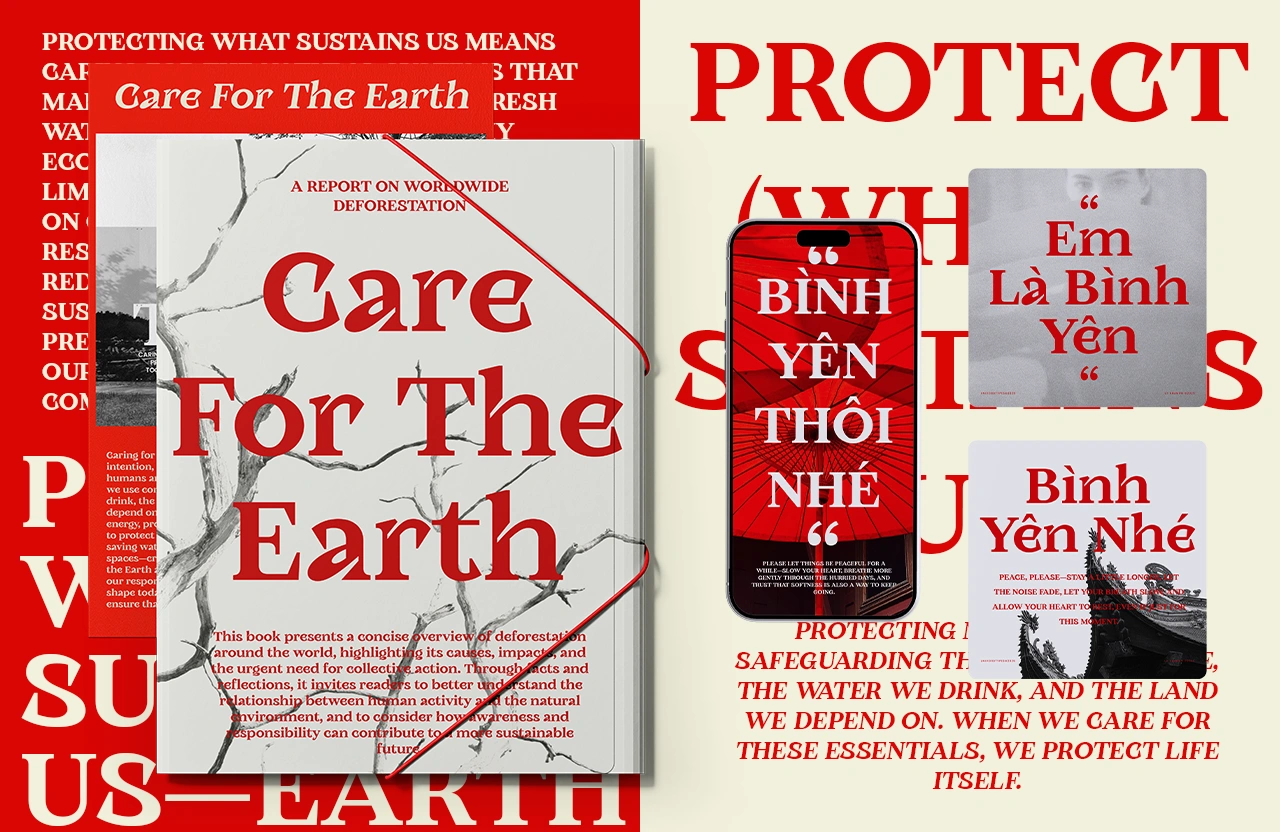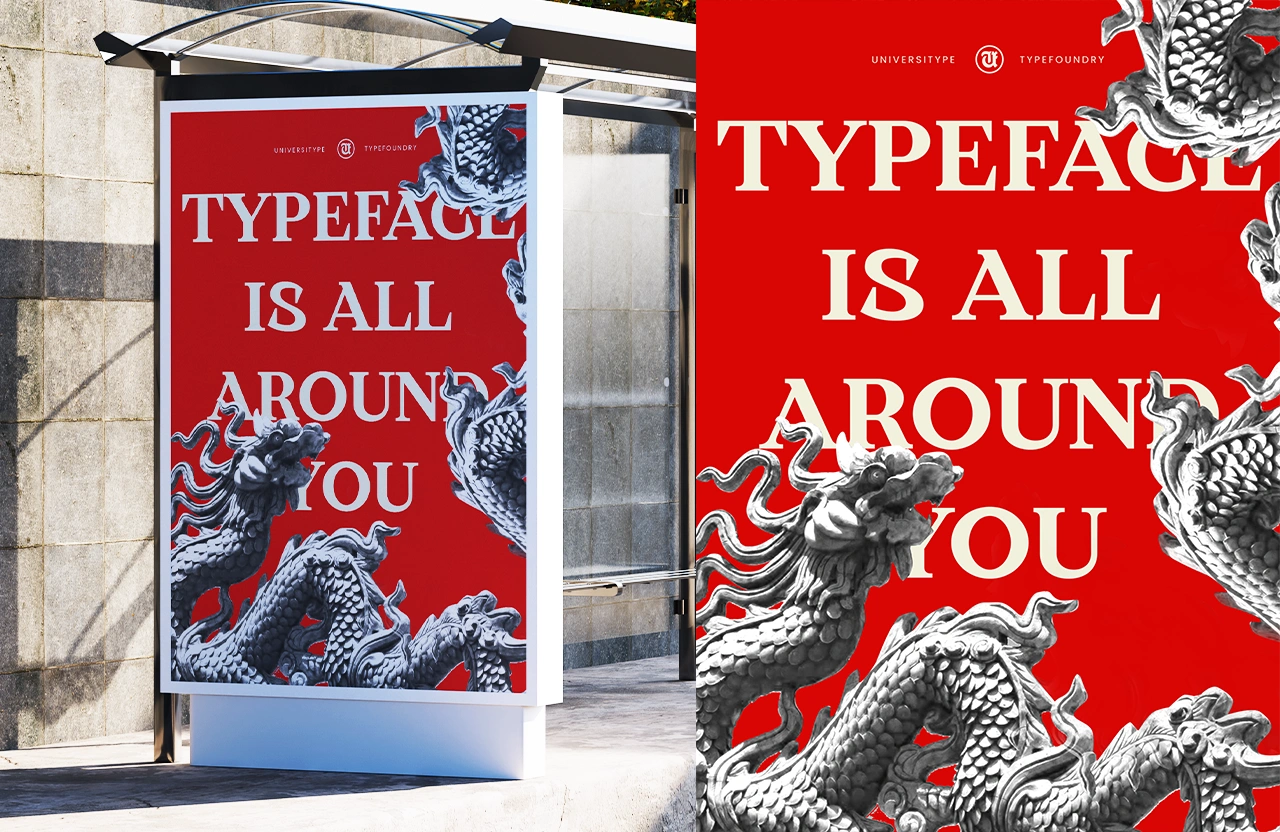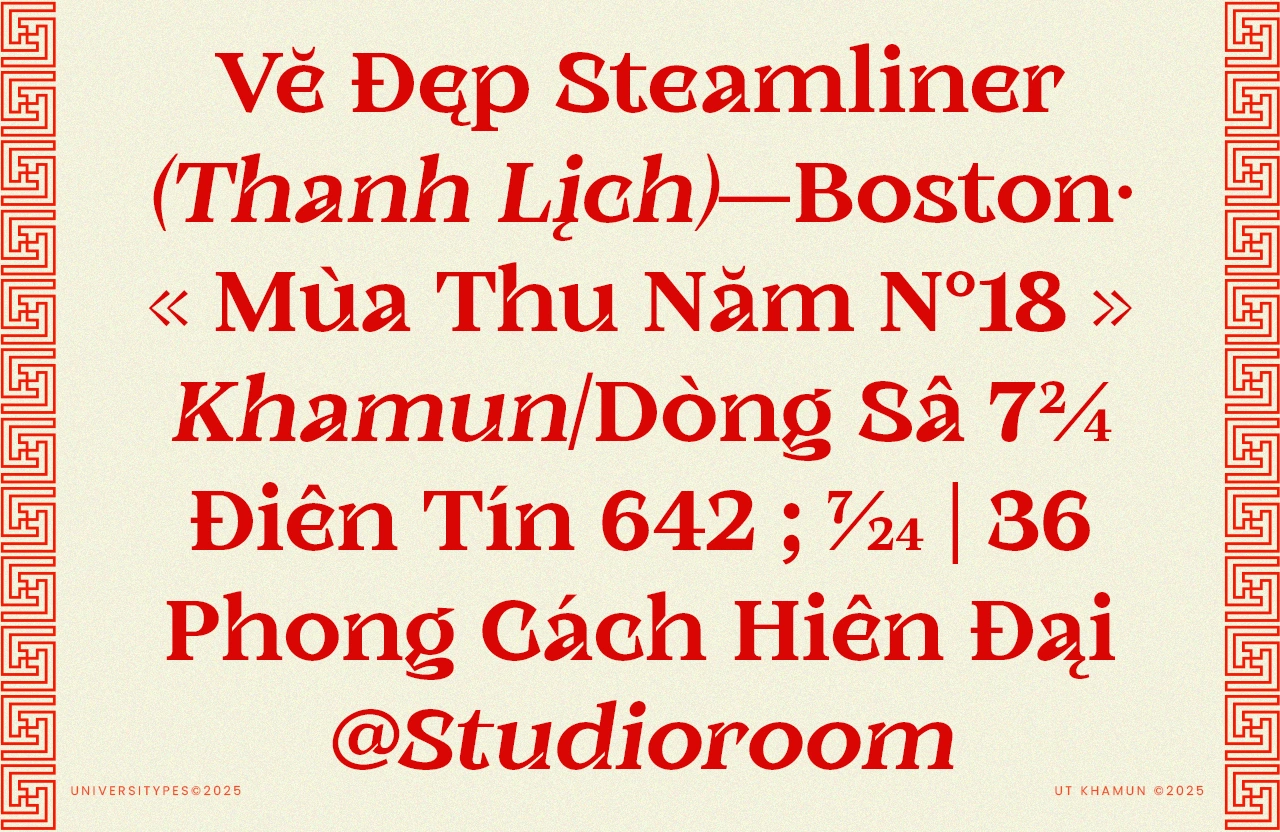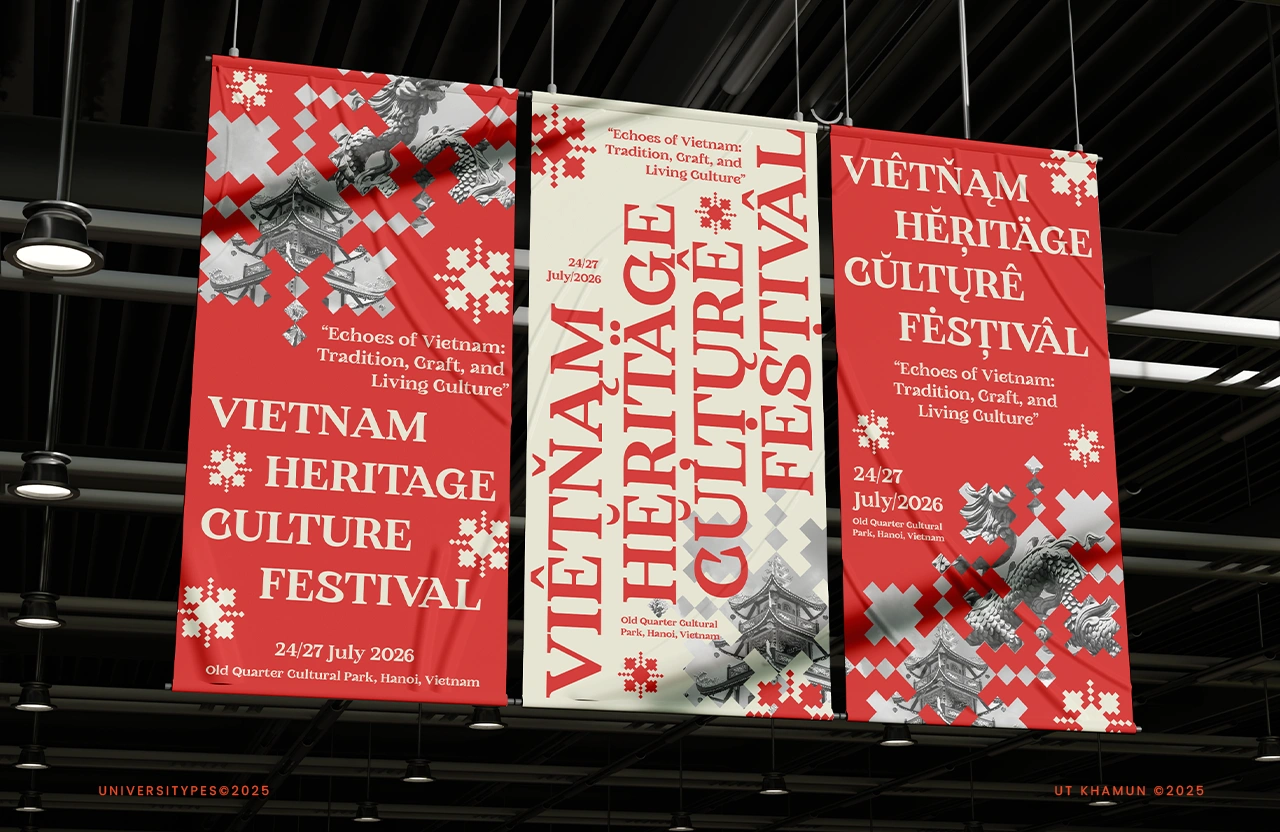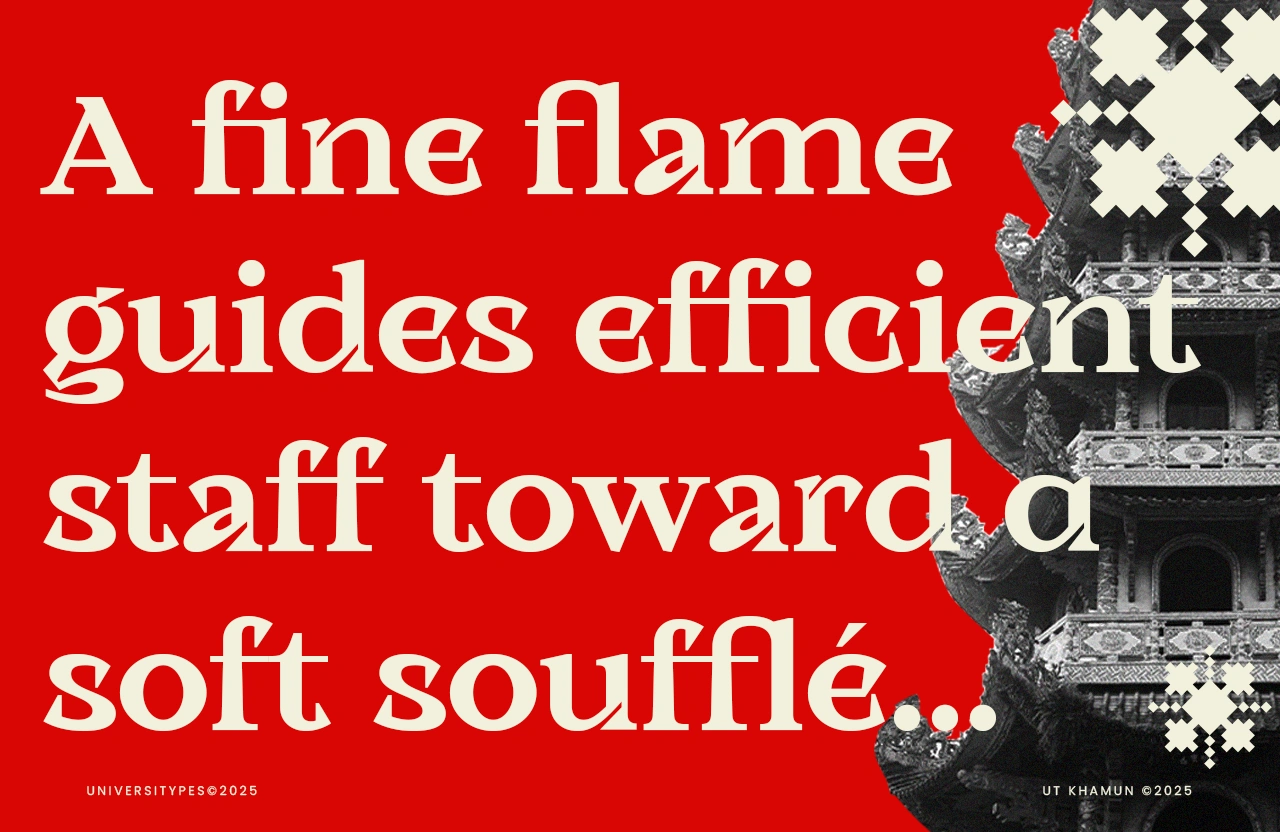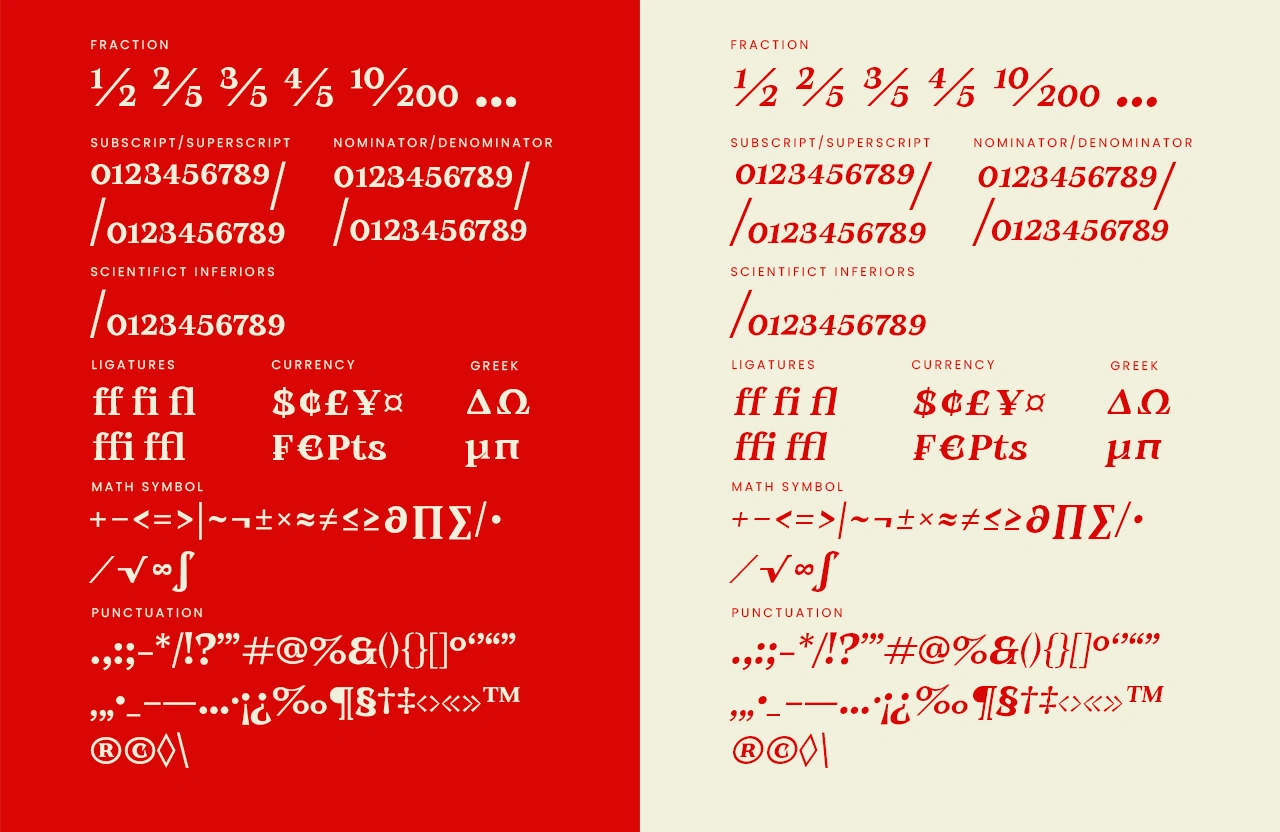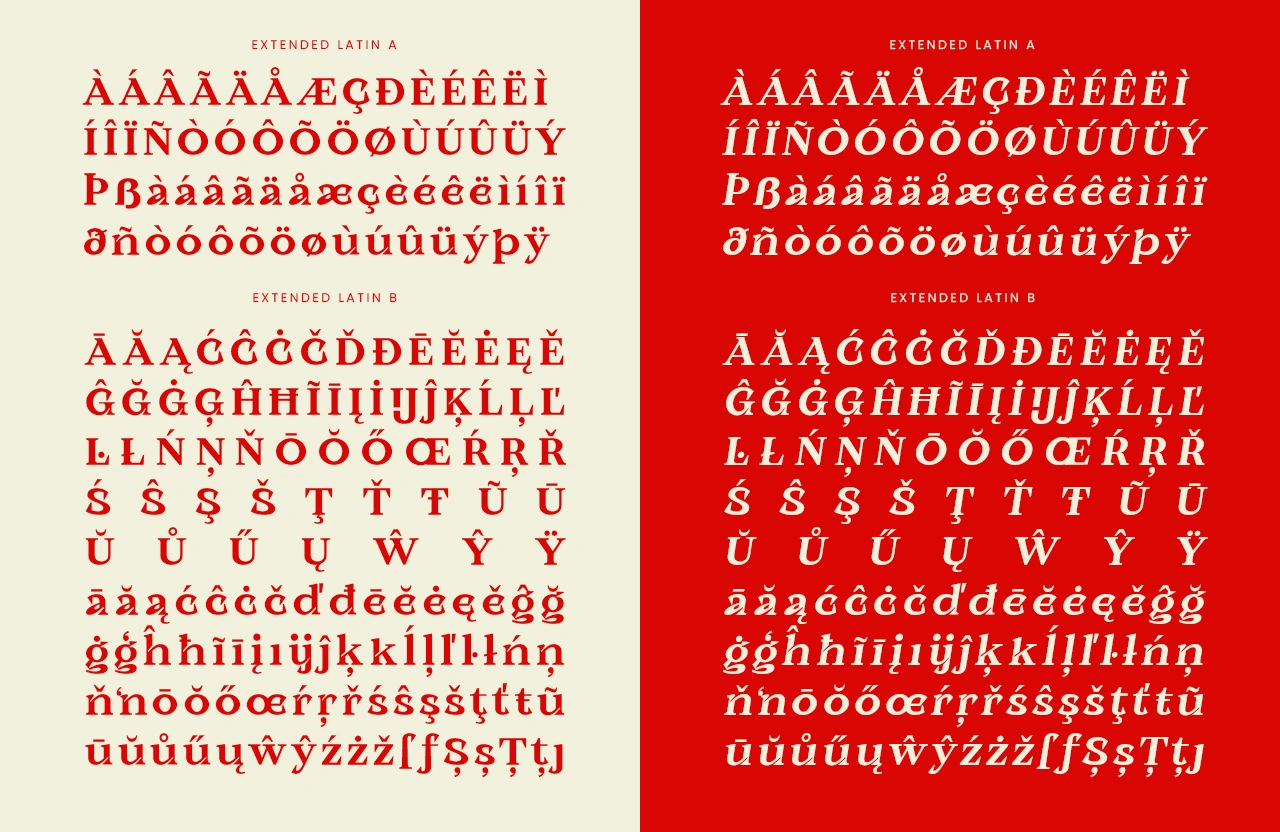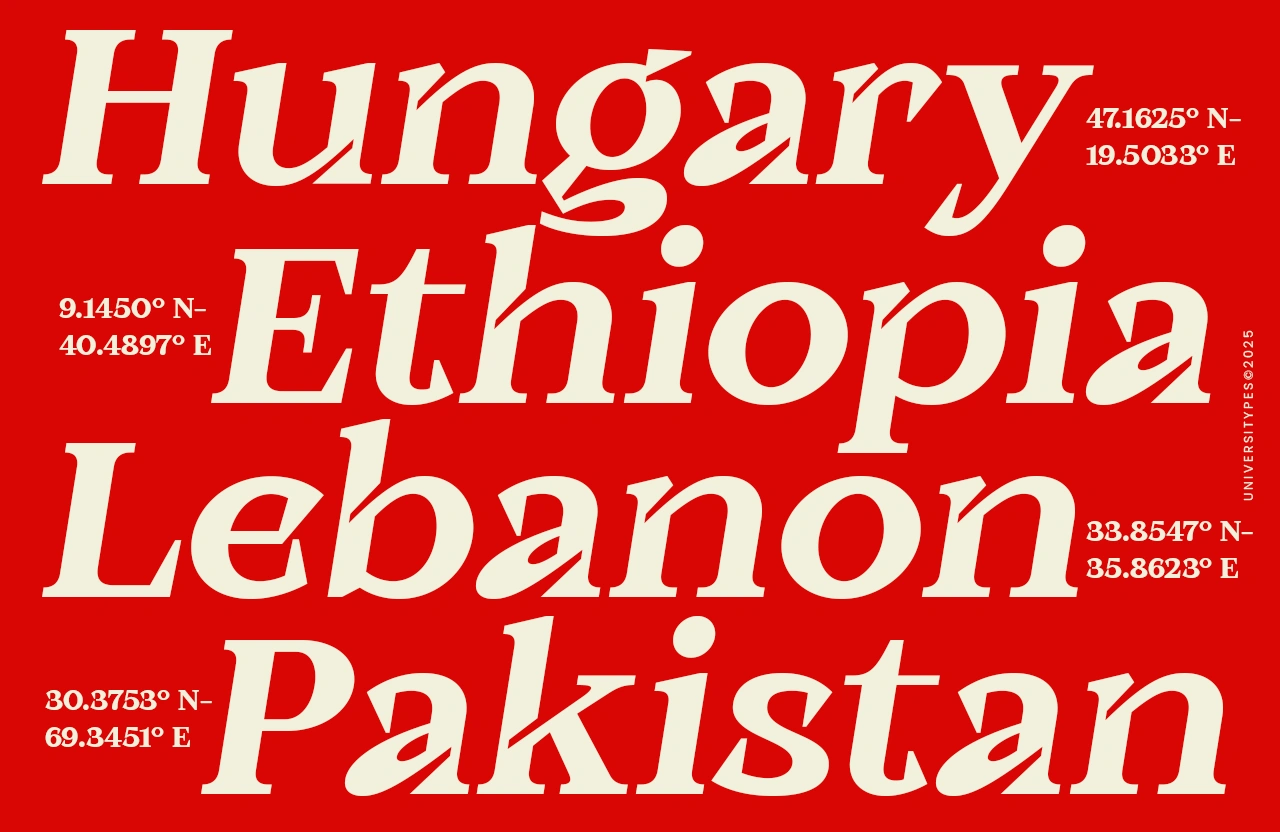
UT Khamun
UT Khamun is a bold inktrap serif with a sharp presence and a refined rhythm. Heavy strokes meet dramatic cuts, creating letters that feel powerful yet controlled. The deep inktraps aren’t just technical details—they shape the personality, giving the typeface a confident stance and a distinctive texture at display sizes.
UT Khamun – A Bold Inktrap Serif
UT Khamun is a bold inktrap serif with a sharp presence and a refined rhythm. Heavy strokes meet dramatic cuts, creating letters that feel powerful yet controlled. The deep inktraps aren’t just technical details—they shape the personality, giving the typeface a confident stance and a distinctive texture at display sizes. With expressive curves, sturdy serifs, and carefully tuned proportions, UT Khamun brings a striking visual voice that feels rooted, modern, and unapologetically strong.
Key Features:
• Bold serif construction with extreme inktrap details
• Strong contrast that stays readable at large sizes
• Distinctive shapes that create a memorable wordmark presence
• Extended Latin coverage for global use
• Carefully balanced proportions for headline-focused typography
Inspiration Behind the Design:
UT Khamun draws from the visual language of power, legacy, and ornament found in historical artifacts and monumental forms. The sharp inktraps echo ink-heavy printing traditions, while the confident curves and sturdy serifs reference timeless craftsmanship. The result feels ceremonial and contemporary at the same time, built to carry strong messages with clarity and attitude.
Technical details:
• Typeface category: Bold serif / inktrap display
• Weight: Display-focused
• Language support: 200+ languages
• Glyph count: 425+ glyphs
• Extended Latin A and B support
features :
• Uppercase and lowercase characters
• Numerals and punctuation
• Accented characters
• Stylistic alternates
• Single-storey alternate characters
• Inktrap-optimized letterforms